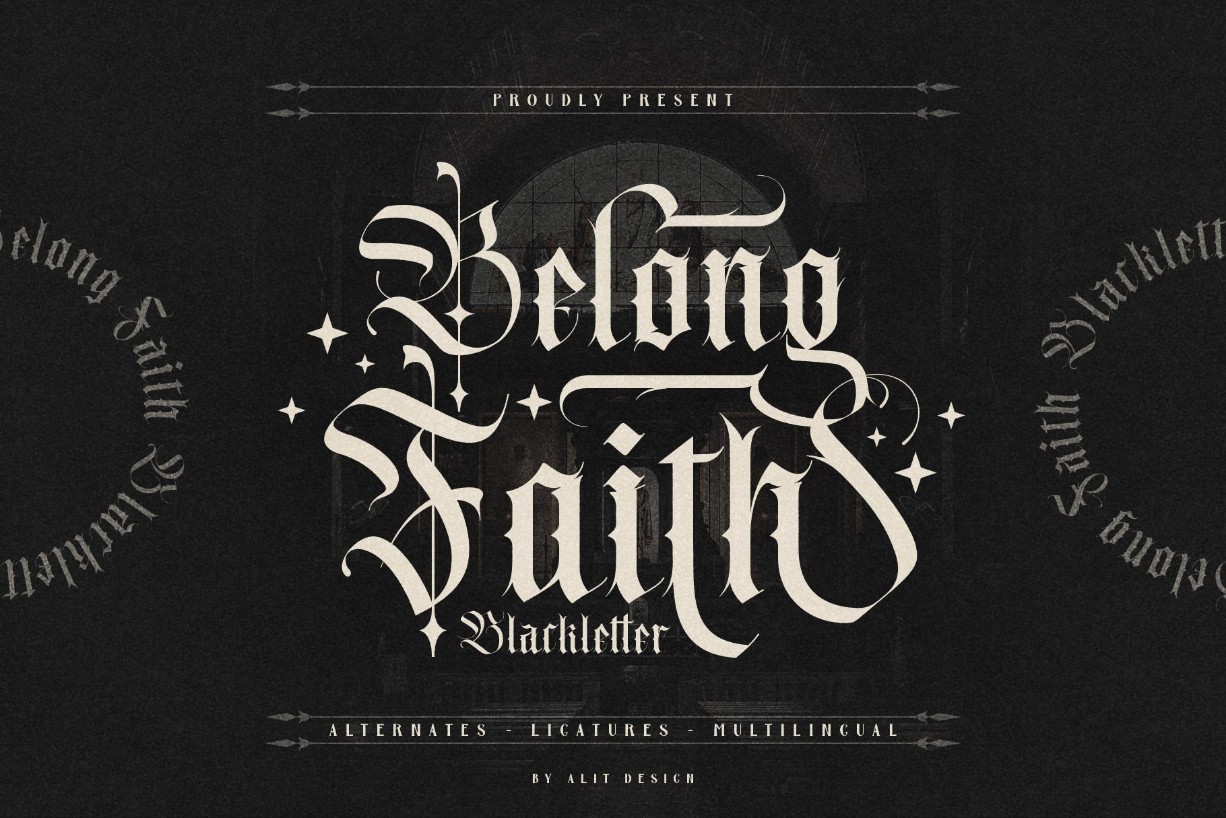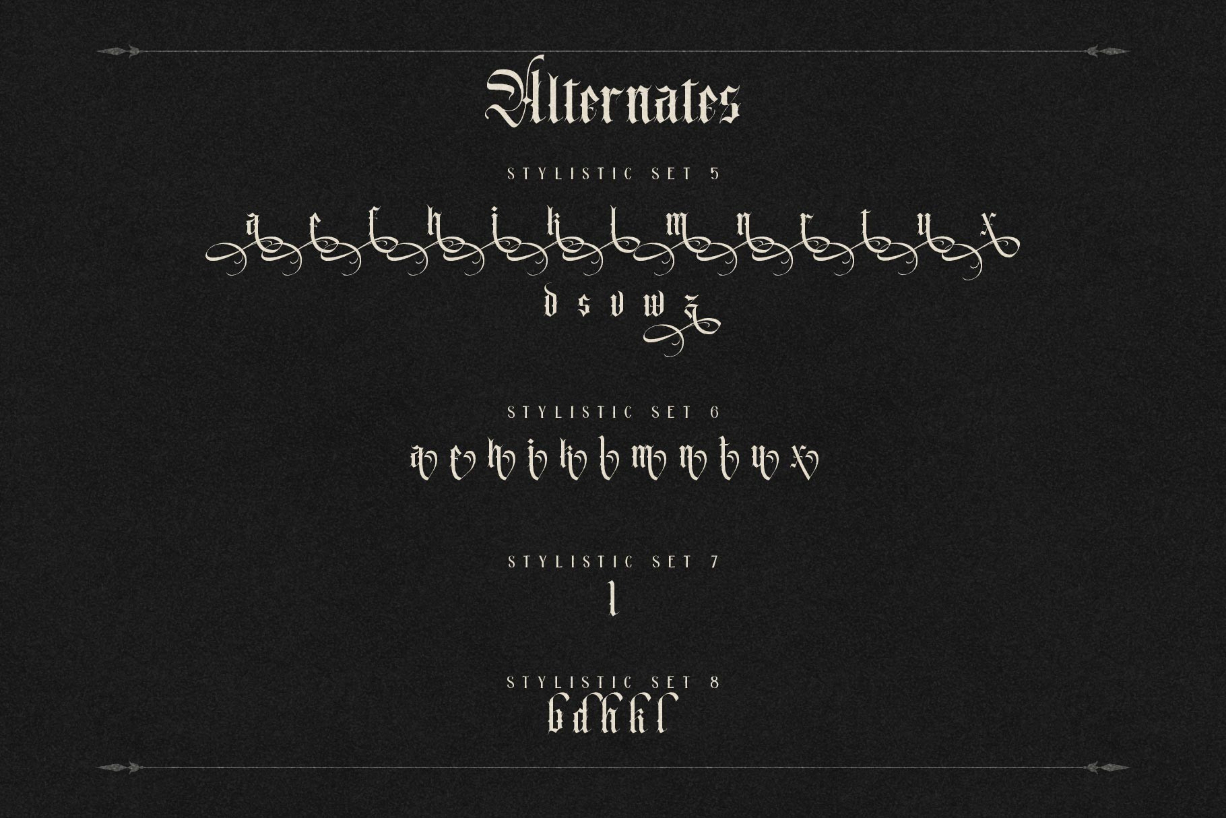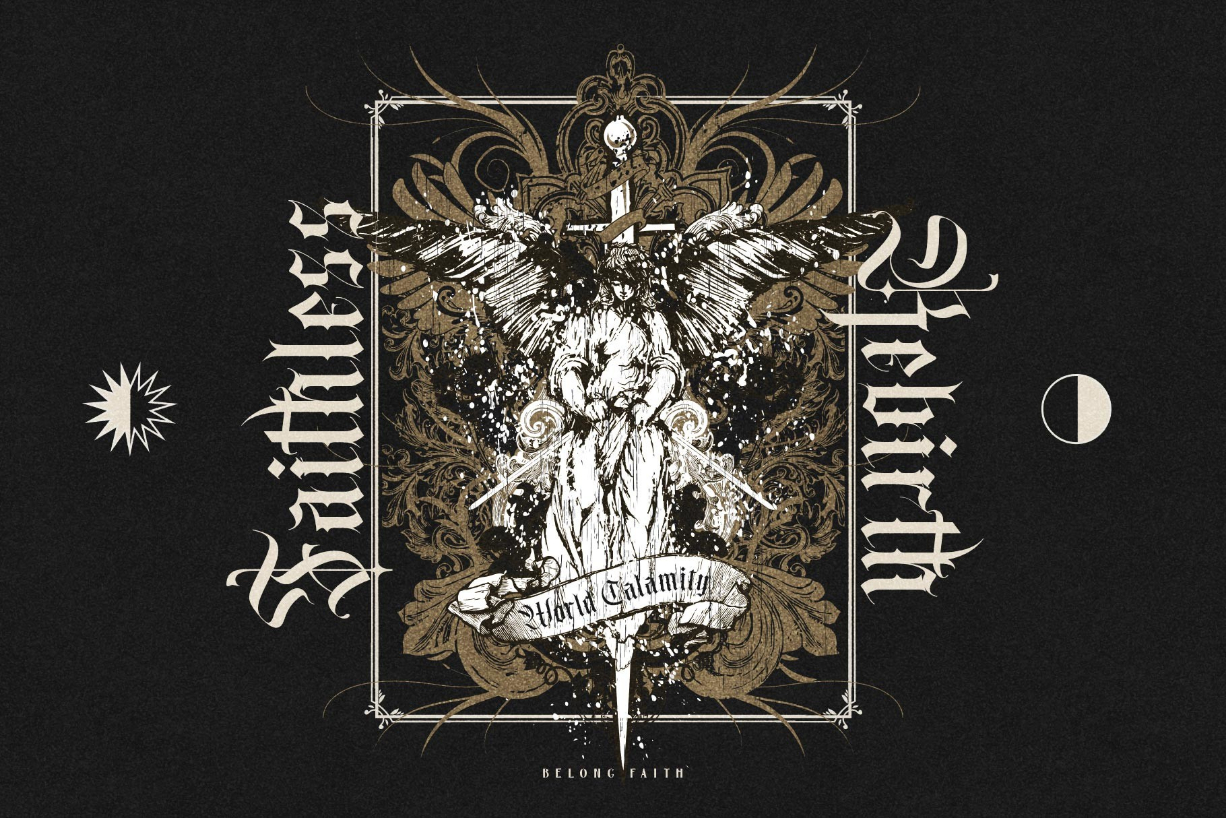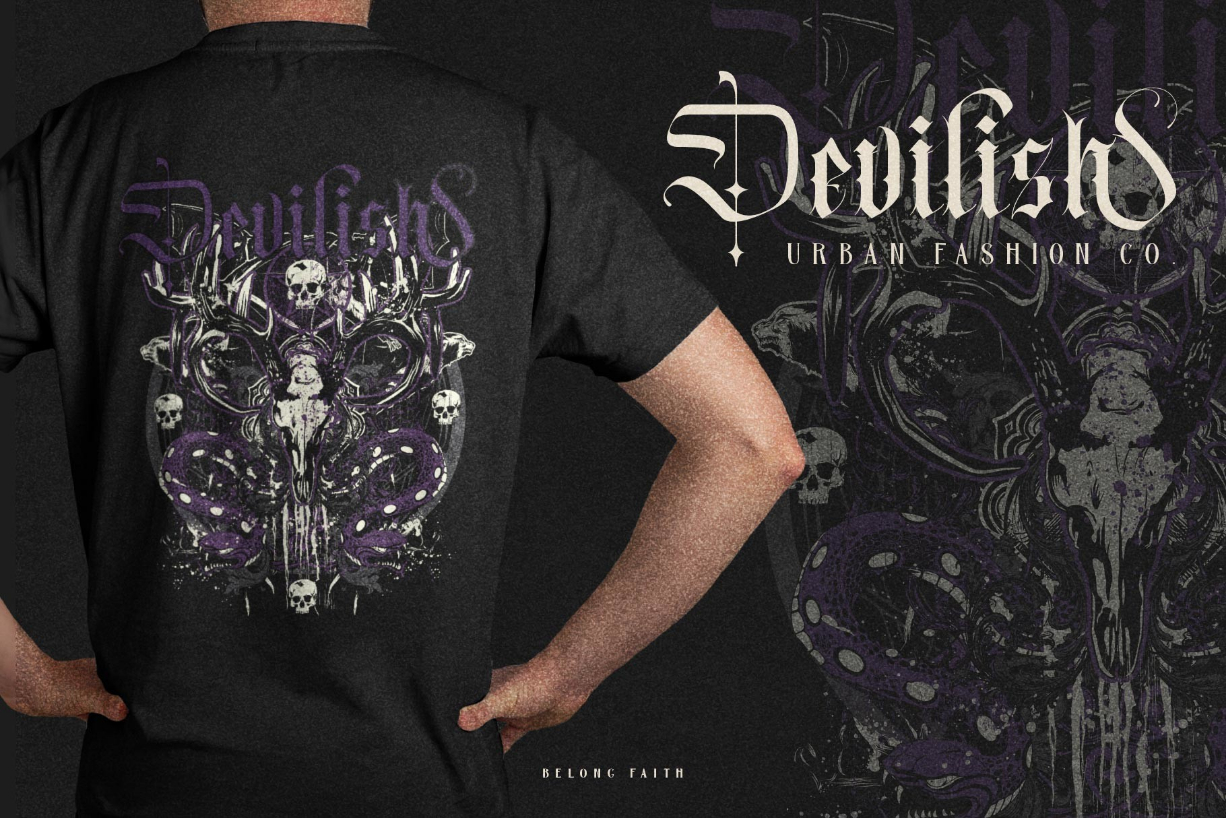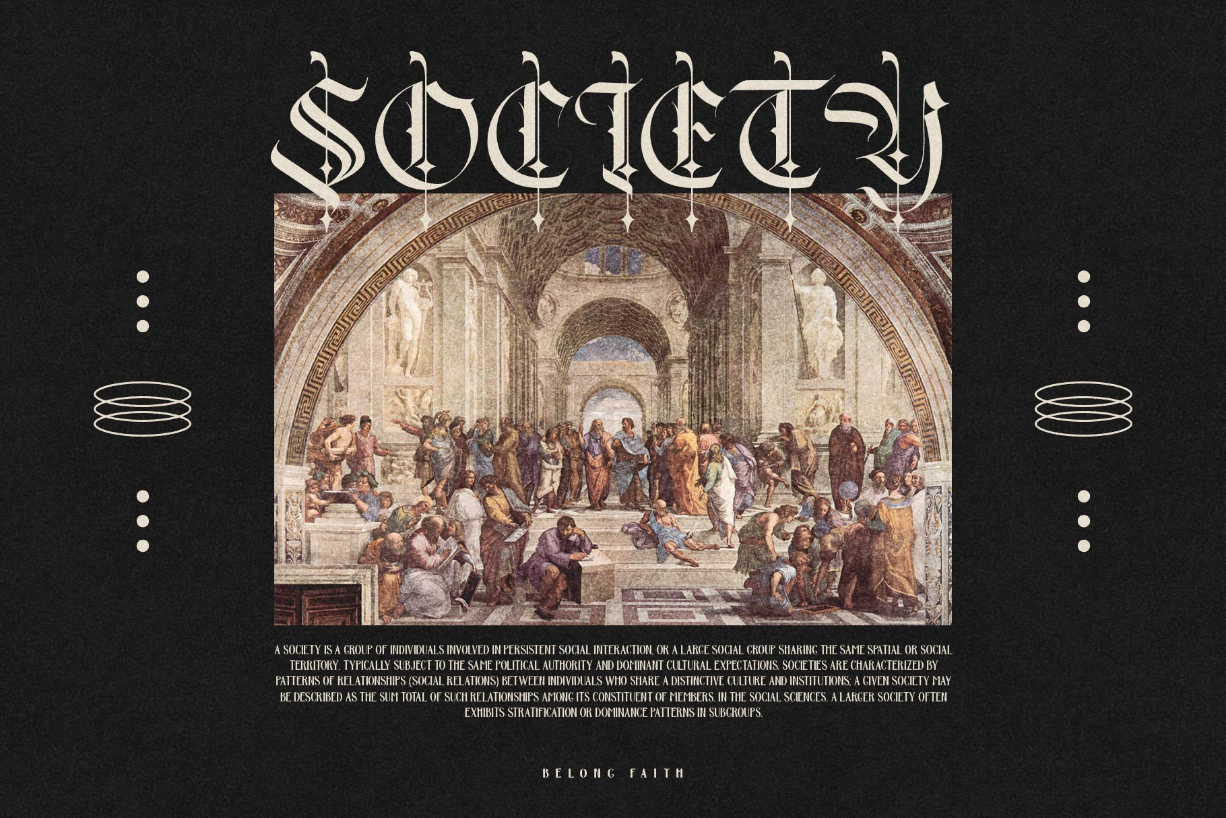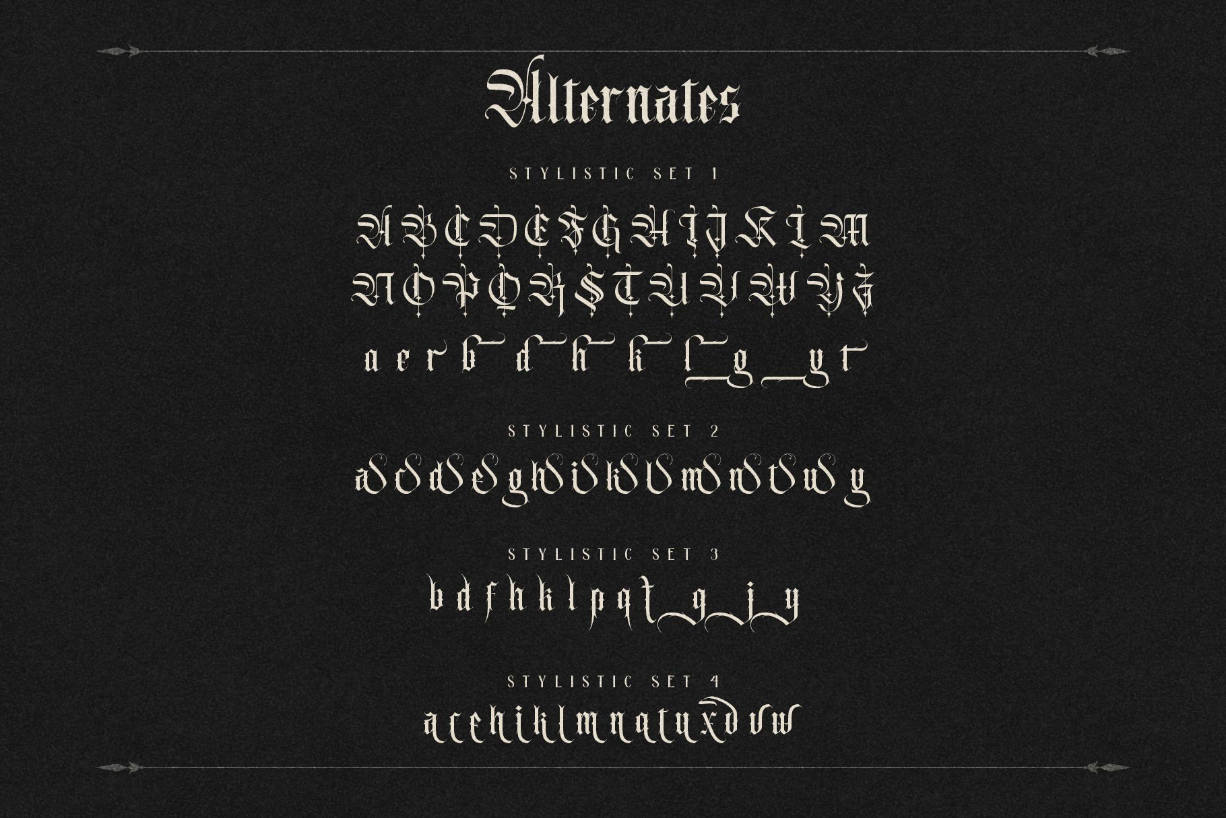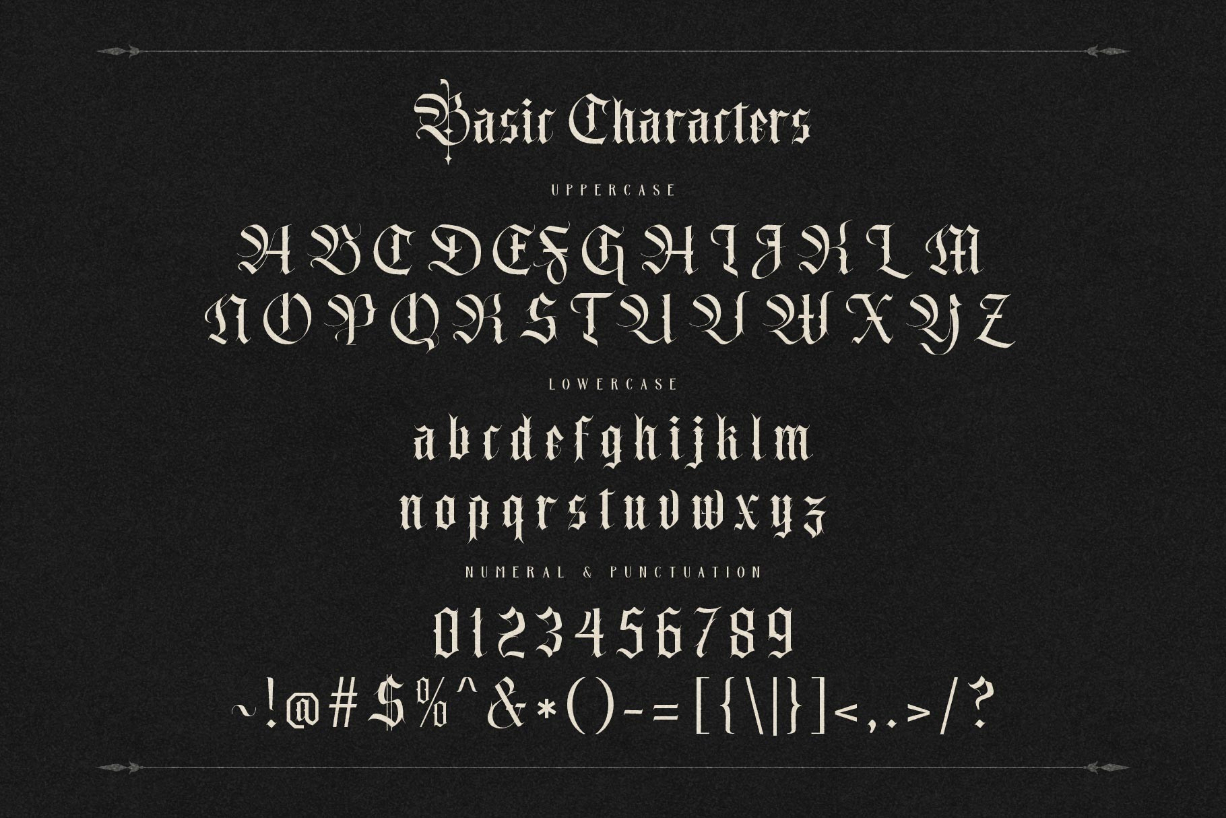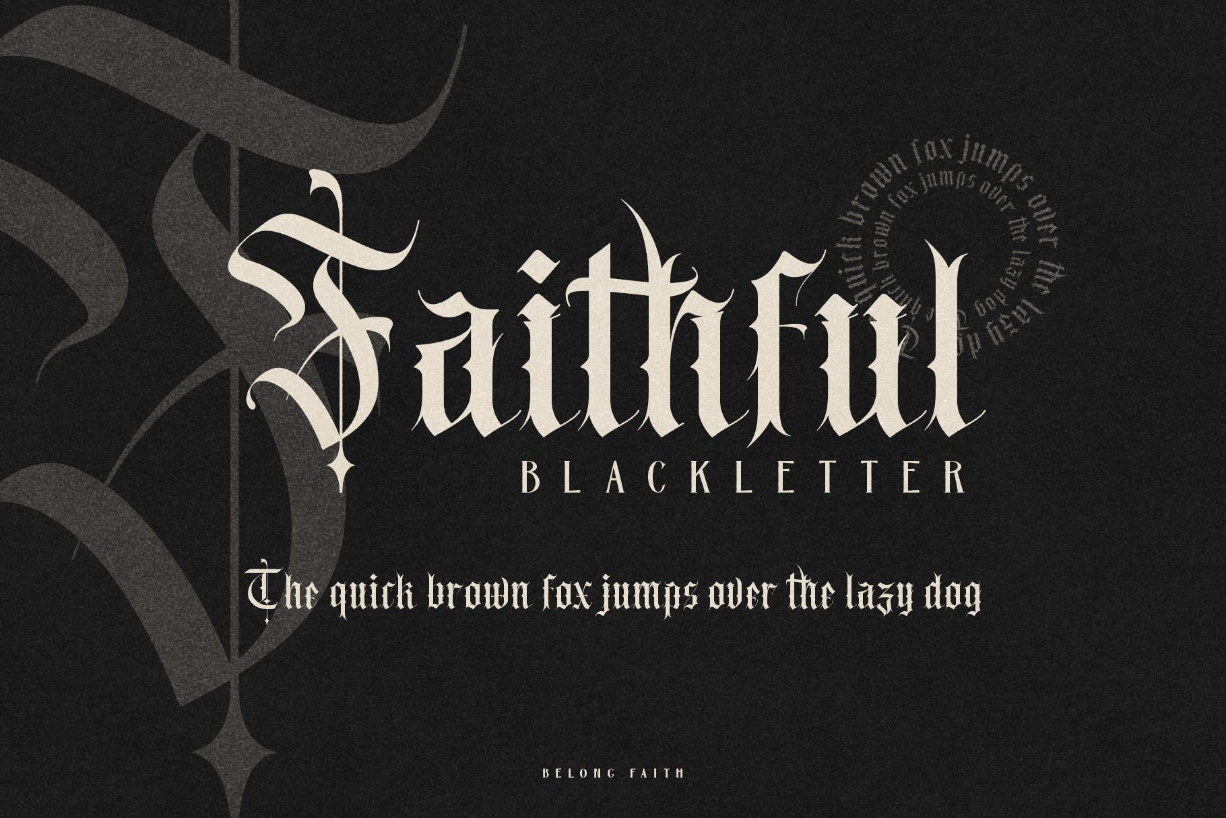
Belong Faith Font
About Belong Faith Font
Belong Faith is an assertive font that looks both strong and detailed. It is PUA encoded which means you can access all glyphs and swashes with ease!
Add it confidently to your label creation, branding and similar designs that require a bold touch.